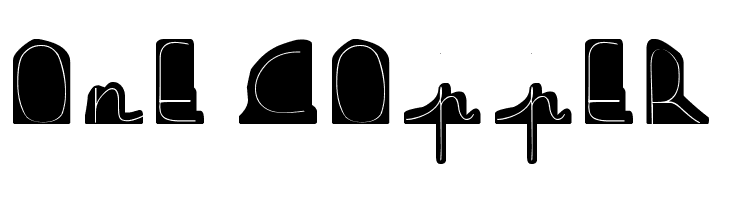
Respect The Teacher Font
- Font: Respect The Teacher
( Fonts by Aryel Filipe )
A playful and bold font with exaggerated curves and angles, perfect for creative projects.